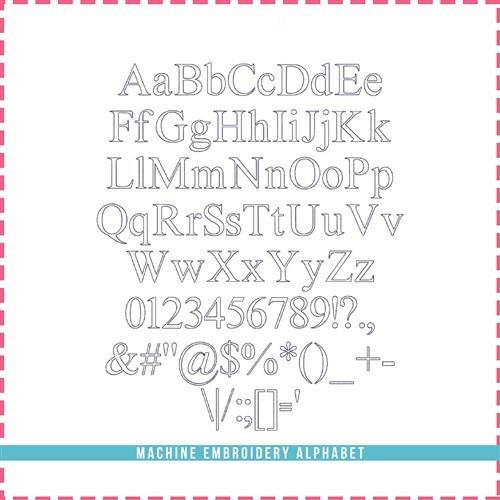
Maya Kreations is happy to present Times Outline Embrilliance machine embroidery font which has Classic outline machine embroidery font with clear, defined letters, suited for use on shirts and home decor. Available in BX font and Embrilliance formats, with 17 sizes for versatile projects. included. If you would like to view more embroidery fonts and alphabets please search our embroidery fonts page.